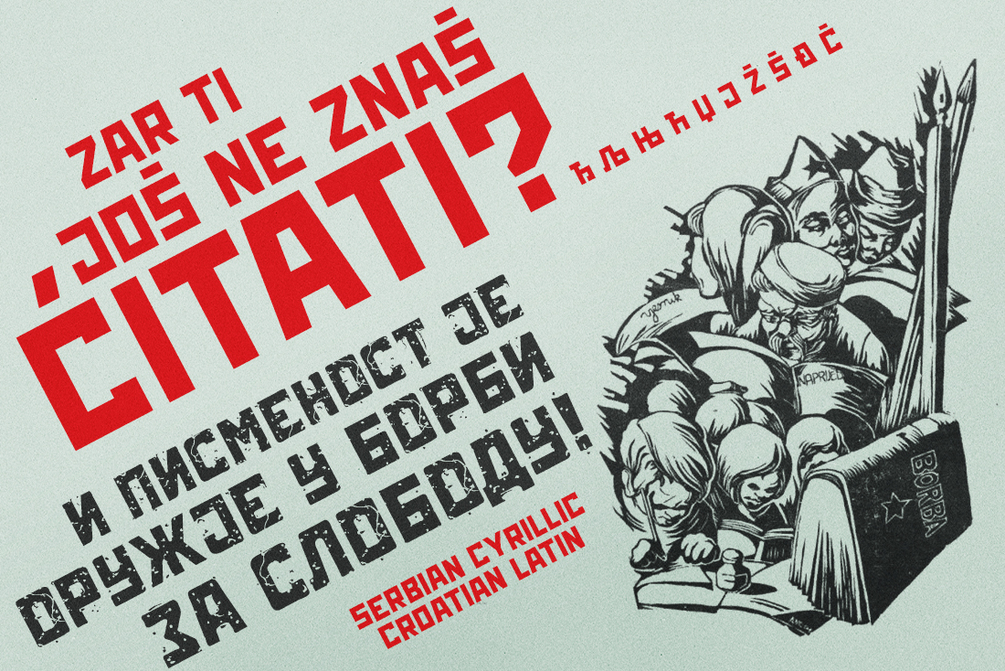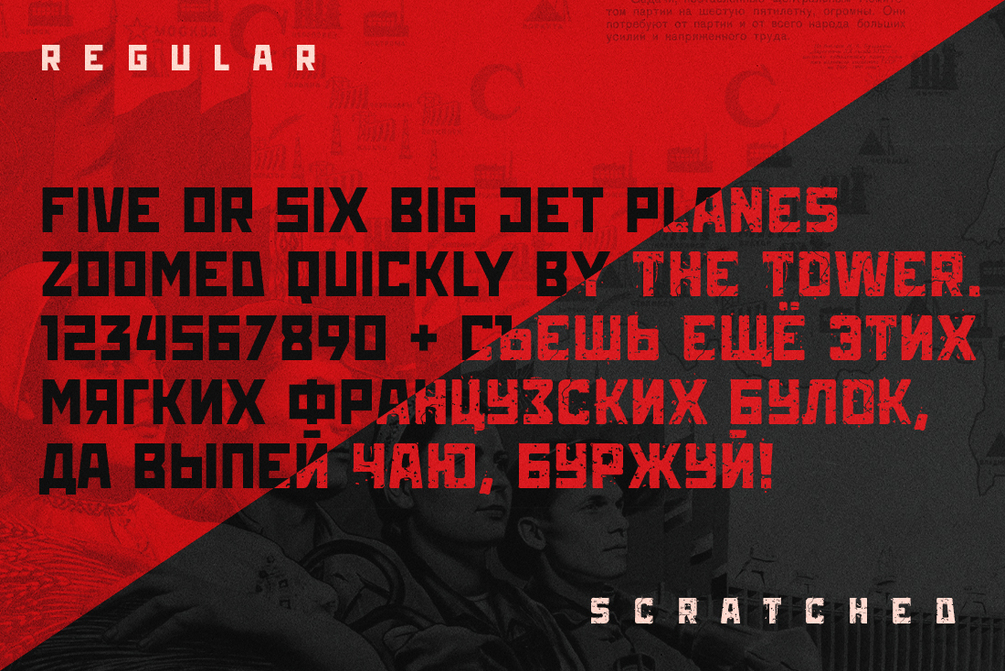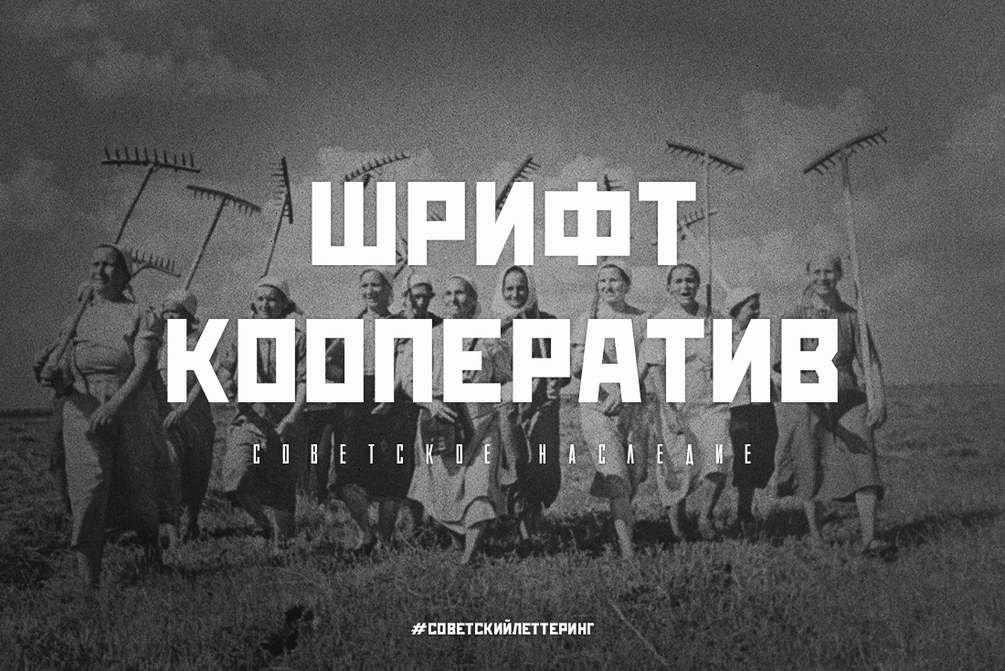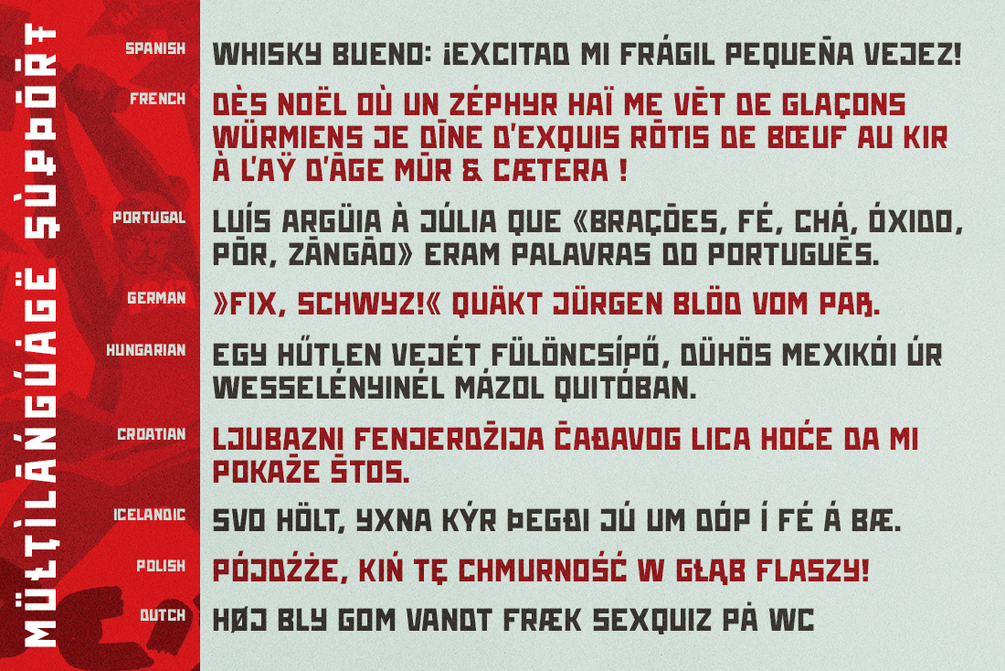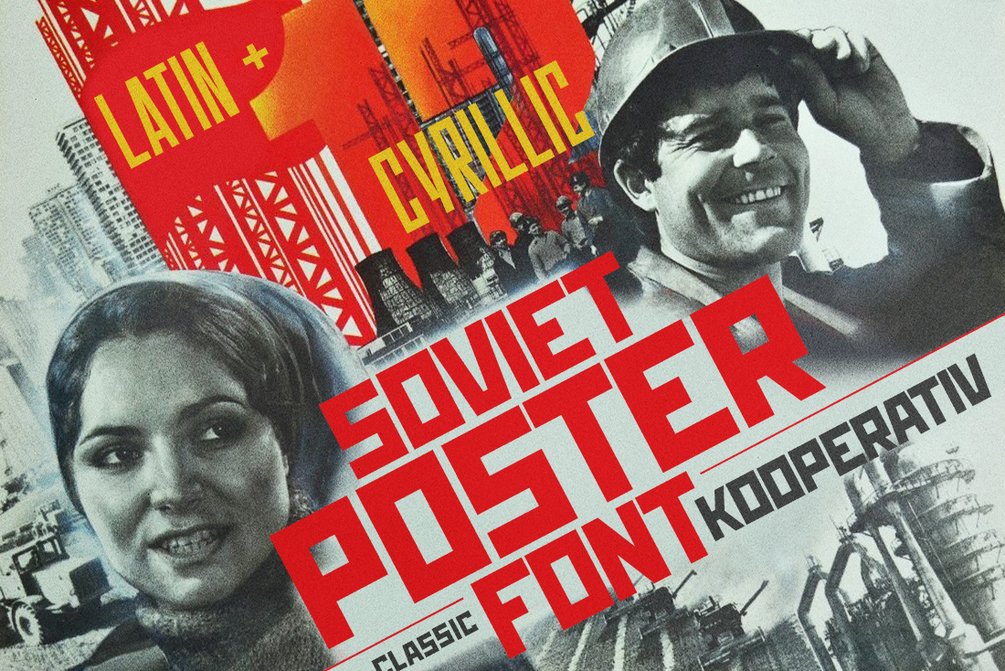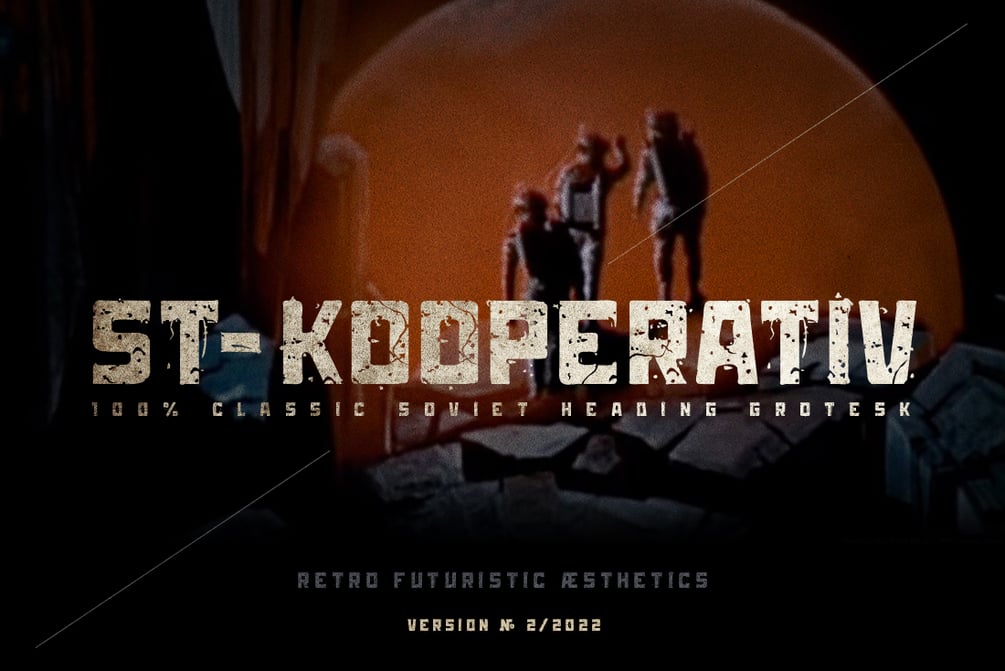
ST-Kooperativ
Introducing a retro grotesque called "ST-Kooperativ" (Сooperative). Bring back to the Soviet era this font reproduces the classic Soviet posters letters. The letterforms are straight and bold and come in 2 styles: regular clean and scratched. It has Extended Cyrillic and Extended Latin letters. "Kooperativ" created for titles, poster design, web design, branding and packaging works, illustrations, badges and other typography works.